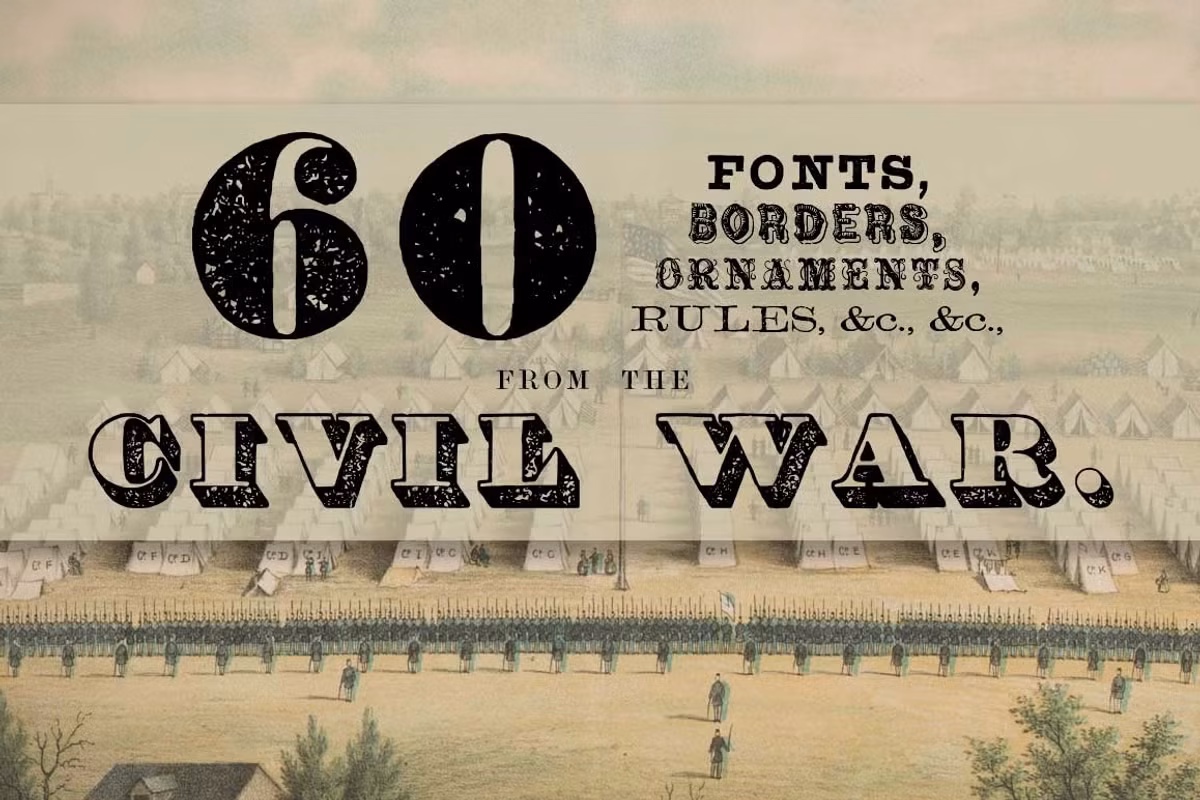
60 Fonts from the Civil War Bundle Font Free Download is a treasure trove of typographic history, offering a diverse collection of vintage fonts inspired by 19th-century Americana. Perfect for historical projects, antique branding, posters, book covers, and vintage-themed merchandise, this bundle captures the authentic spirit of the Civil War era in every letterform.
Each font in the bundle brings its own character—from ornate serifs to rugged slabs and hand-crafted scripts—giving designers a powerful toolkit for creating deeply atmospheric and period-accurate visuals. Whether you're working on a documentary project or branding a heritage product line, these fonts add an unmatched historical flair.